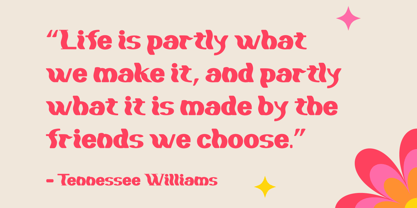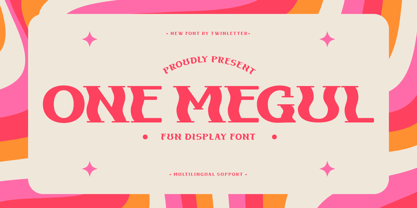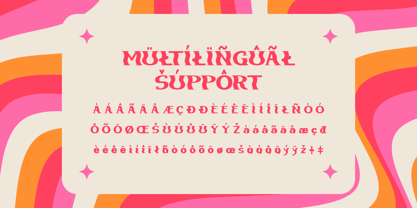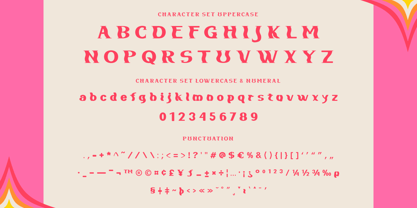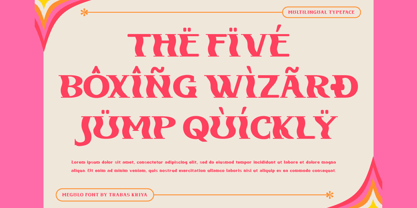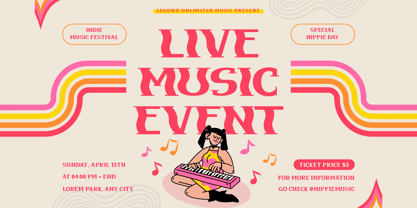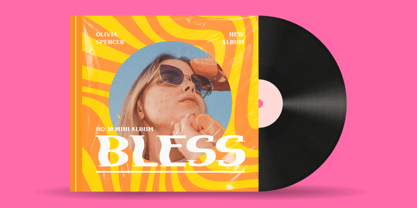
One Megul
The One Megul Font Family was designed by Murozakul Akhsan and published by Trabas Kriya. One Megul contains 1 styles. More about this family
One Megul is a playful display font that’s full of fun. Its quirky, whimsical characters make it perfect for children’s books, party invitations, and any design where you want to add a touch of fun. With One Megul, your designs will always bring a smile to people’s faces.
- All glyphs and Feature
- Fonts include Multilingual: Support for 85 languages.
Afrikaans, Albanian, Asu, Basque, Bemba, Bena, Breton, Catalan, Chiga, Cornish, Croatian, Czech, Danish, Dutch, Embu, English, Esperanto, Estonian, Filipino, Finnish, French, Friulian, Galician, Gusii, Hungarian, Indonesian, Irish, Italian, Kabuverdianu, Kalenjin, Kamba, Kikuyu, Kinyarwanda, Latvian, Lithuanian, Lower, Sorbian, Luo, Luxembourgish, Luyia, Machame, Makhuwa-Meetto, Makonde, Malagasy, Maltese, Manx, Meru, Morisyen, North, Ndebele, Norwegian Bokmål, Norwegian Nynorsk, Nyankole, Oromo, Polish, Portuguese, Quechua, Romanian, Romansh, Rombo, Rundi, Rwa, Samburu, Sango, Sangu, Scottish, Gaelic, Sena, Serbian, Shambala, Shona, Slovak, Slovenian, Soga, Somali, Spanish, Swahili, Swedish, Swiss German, Taita, Teso, Turkish, Upper Sorbian, Uzbek (Latin), Volapük, Vunjo, Walser, Zulu.
Designers: Murozakul Akhsan
Foundry: Trabas Kriya